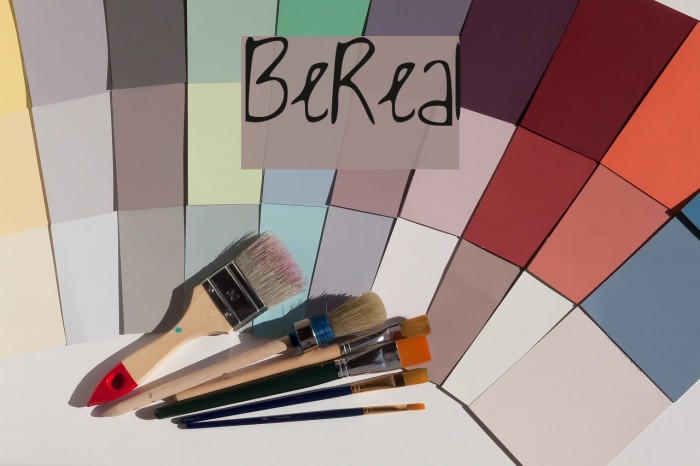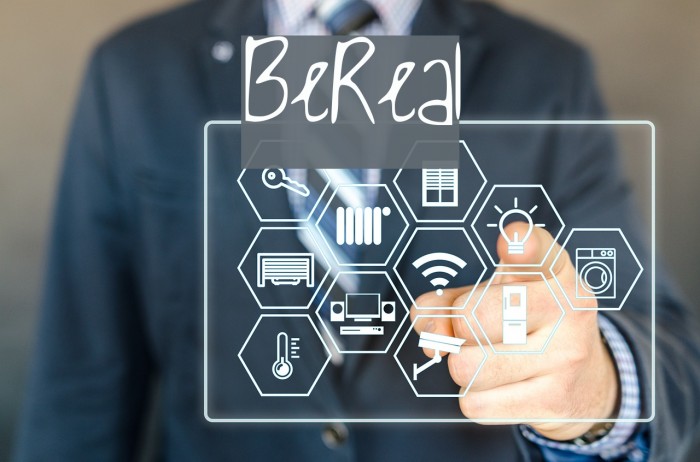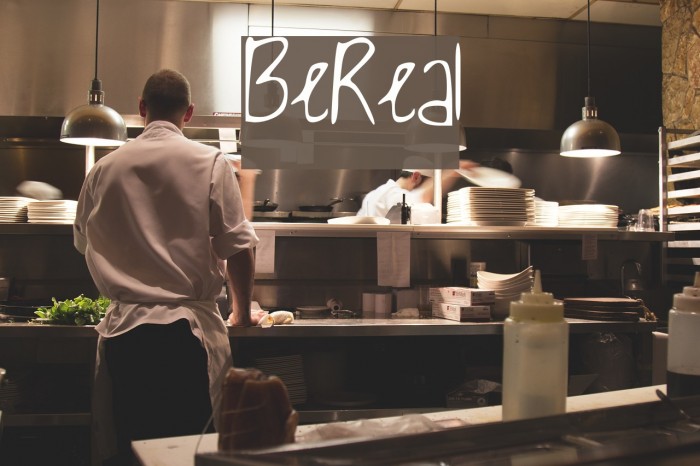
Be_Real__ Font
This font features a playful and whimsical handwritten style, characterized by its irregular strokes and dynamic flow. The uppercase letters are tall and slender, while the lowercase letters maintain a consistent, casual appearance. The numbers and special characters complement the overall quirky aesthetic, adding to its charm. The font's unique personality is conveyed through its uneven lines and varying stroke widths, giving it a lively and informal feel. This style is perfect for projects that require a touch of creativity and individuality.
A playful, whimsical handwritten font with irregular strokes and dynamic flow.
- Proposed Projects: Ideal for greeting cards, children's books, creative branding, and playful posters.
- Use Case: Logos, Headlines, Creative projects